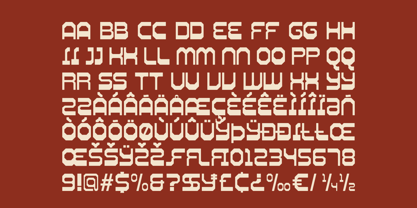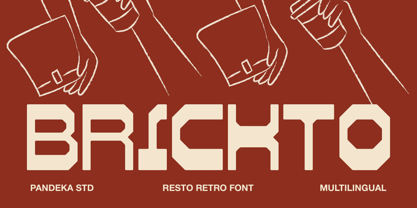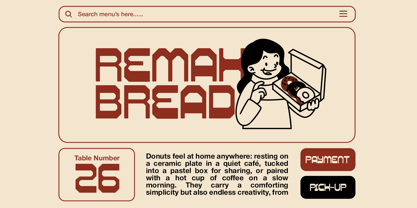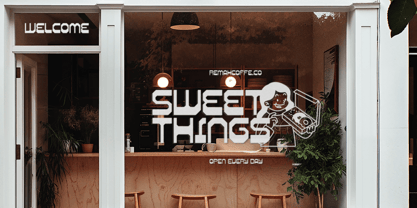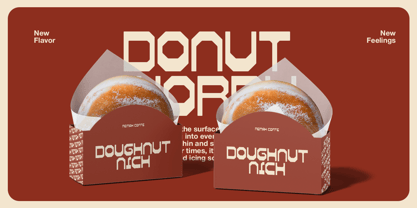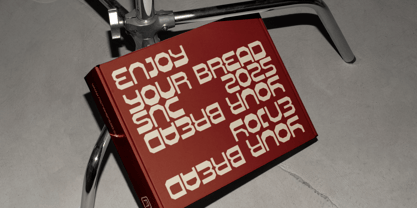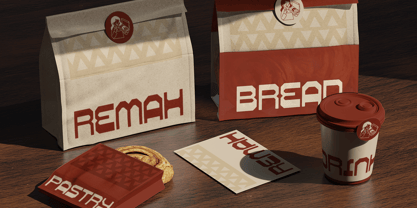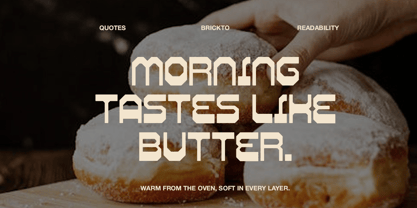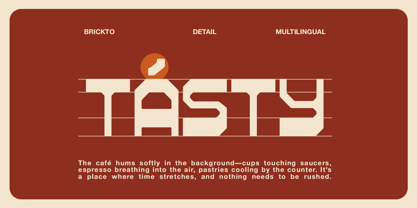
Brickto
by Pandeka Studio
The Brickto Font Family was designed by Sagara Nararya and published by Pandeka Studio. Brickto contains 1 styles.
Brickto is a bold retro restaurant display font inspired by classic diners, vintage bakeries, and old-school food branding. Its strong geometric shapes, compact letterforms, and nostalgic structure create a warm and familiar feeling while remaining highly readable and impactful. With a single Regular style, Brickto is designed to stand out effortlessly in headlines and branding-focused layouts.
Perfect for restaurant logos, bakery packaging, menu designs, café signage, posters, and retro-themed food branding, Brickto delivers a timeless resto vibe that feels playful, bold, and authentic. This font is ideal for designers who want to bring vintage charm and character into modern culinary and hospitality projects.